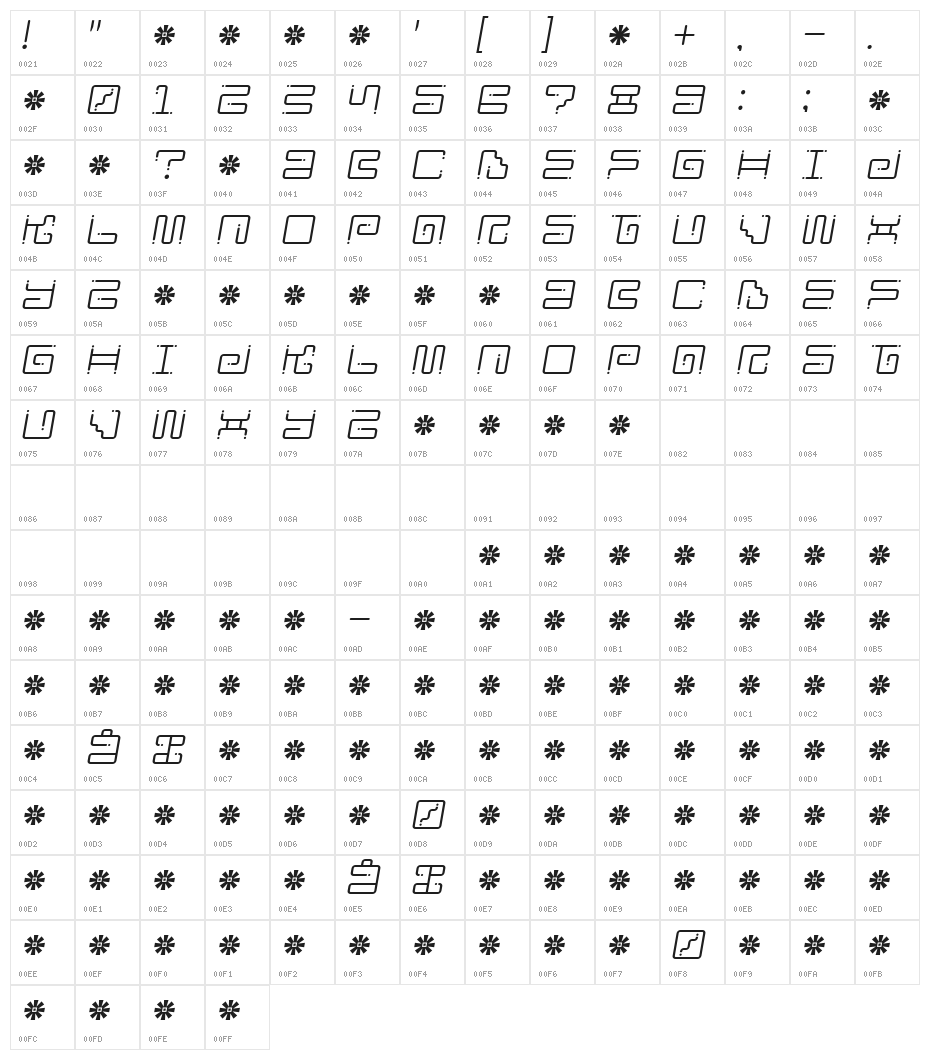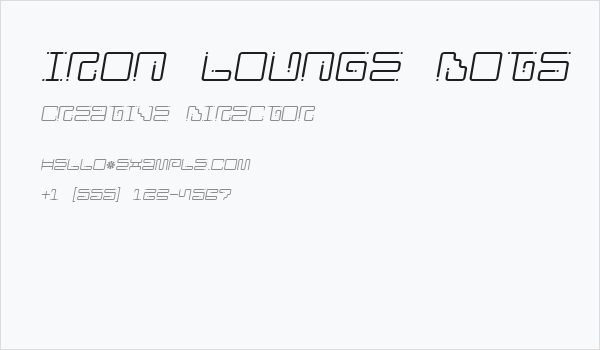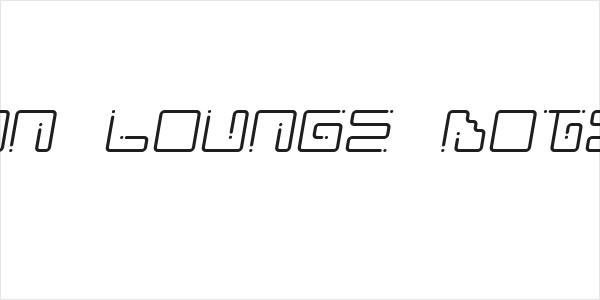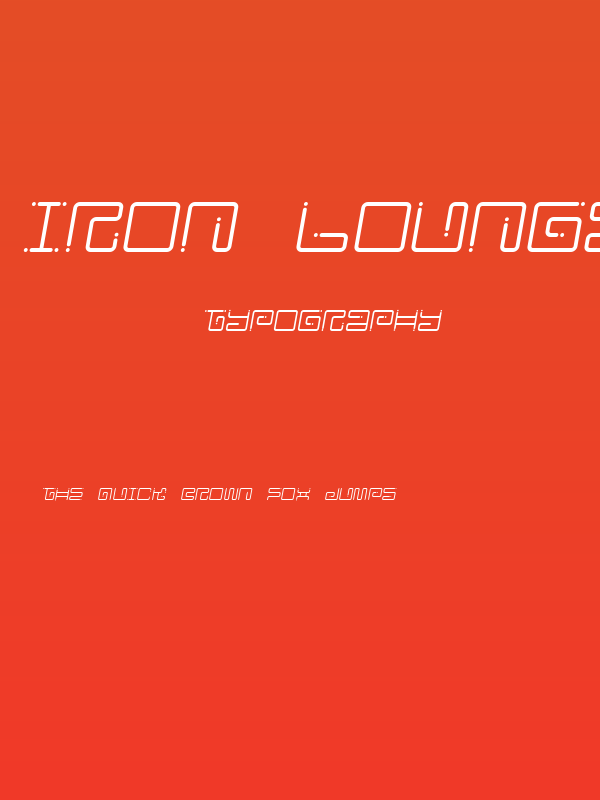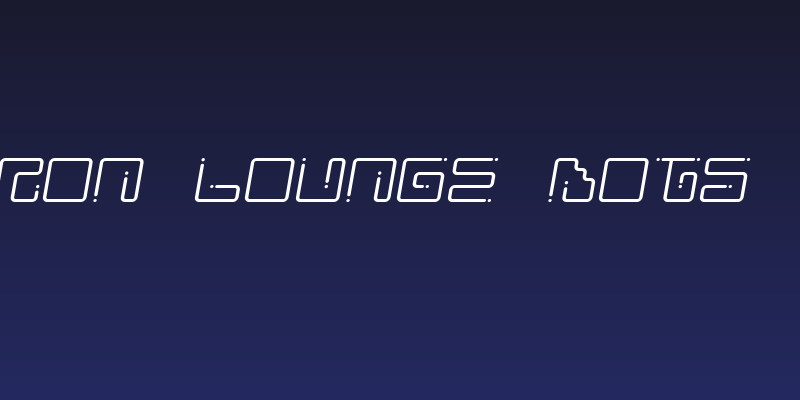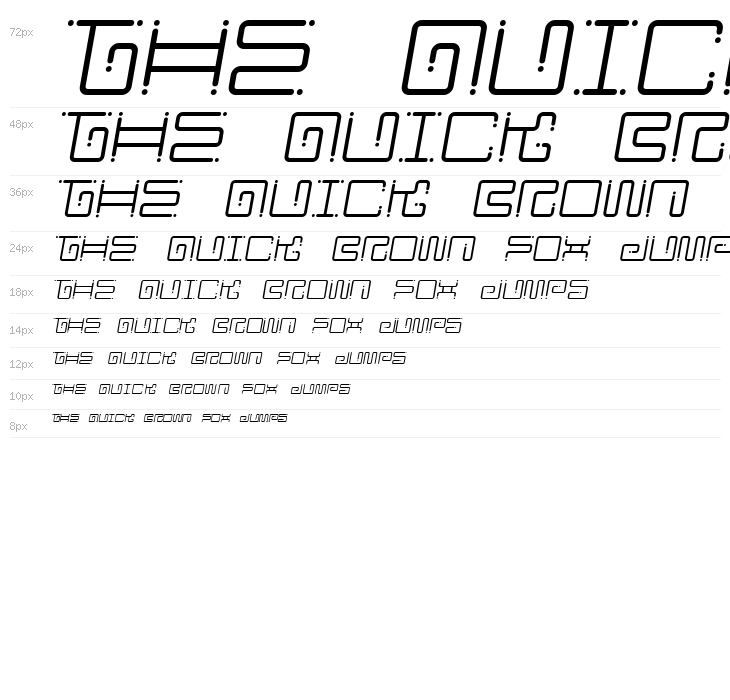
Iron Lounge Dots 2 Font
Iron Lounge Dots 2 Description
This font features a futuristic and digital aesthetic, characterized by its unique dotted and segmented design. Each character is composed of bold, geometric shapes with distinct breaks and dots, giving it a high-tech, modern appearance. The letters and numbers are uniform in height and width, maintaining a consistent visual flow. The font's style is reminiscent of digital displays or retro-futuristic themes, making it ideal for projects that require a technological or avant-garde touch. The special characters, including punctuation and symbols, follow the same design principles, ensuring cohesion across all elements.
| Proposed Projects | Ideal for tech-themed designs, digital displays, sci-fi posters, and modern branding projects. |